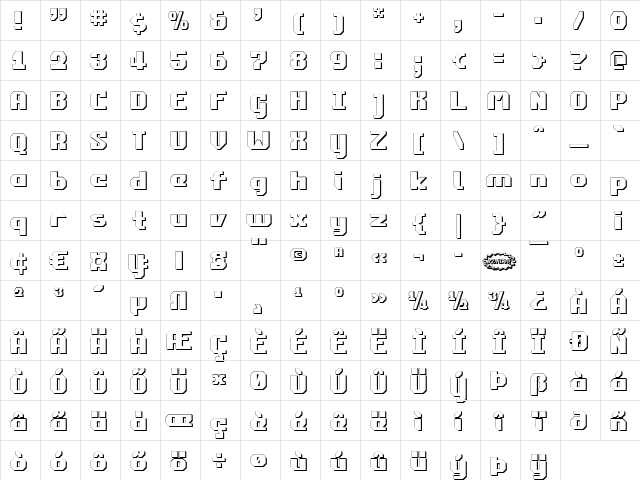
Commonwealth 3D 3D Font Preview
Commonwealth 3D 3D
Design Context for Commonwealth 3D Typeface
Commonwealth 3D takes a measured approach to typography — its balanced proportions and neutral character make it a reliable workhorse for both digital and print work.